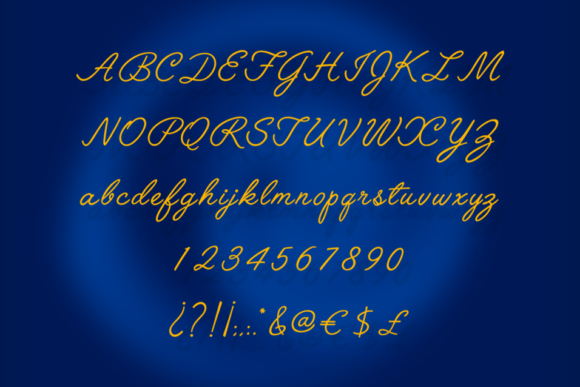
Bring Your Ideas to Life with the Enchanting Angelface Font
Have you ever been stuck in a creative rut, staring at a blank page or screen, desperate for inspiration to strike? You know the feeling – the blank canvas is staring back at you, and your mind is a jumble of ideas that refuse to take shape. But then, something magical happens. A spark of creativity ignites, and your imagination starts to run wild. The words begin to flow, and your vision starts to take shape.
That’s where the Angelface Font comes in – a whimsical, handwritten font that captures the essence of fun, quirkiness, and authenticity. With its enchanting style, this font is designed to turn any creative idea into a true standout. Whether you’re a seasoned designer or just starting out, the Angelface Font is a valuable addition to your toolkit, helping you to bring your unique vision to life.
Angelface Font Key Features
- Font Family: Angelface
- Unique Characteristics: Angelface features a unique blend of elegant and playful elements, with intricate details and flourishes, making it suitable for use in various design contexts, including invitations, greeting cards, and other creative projects
Angelface Font Review
At first glance, Angelface Font appears to be a whimsical and playful addition to any design project. ✨ The delicate curves and elegant lines evoke a sense of sophistication, making it suitable for a variety of applications, from wedding invitations to luxury branding.
Here are some of the strengths of Angelface Font:
- ✨ Unique and eye-catching design that stands out from more traditional fonts.
- ✨ Elegant and refined, making it perfect for high-end branding and design projects.
- ⚠️ The font’s delicate design may not be suitable for very small text sizes, where readability becomes an issue.
- ⚠️ Some users may find the font too ornate or distracting, which can detract from the overall design.
Overall, Angelface Font is a beautiful and elegant addition to any design project. While it may have some limitations, its unique design and sophisticated feel make it a great choice for high-end branding and design applications.
Angelface font is ideal for designs that require a touch of elegance and sophistication. Use it for wedding invitations, birthday party decorations, or any other design that needs a whimsical touch. To get the most out of the font, experiment with different font sizes, colors, and combinations with other design elements.
Great Vibes is a beautiful, elegant script font perfect for adding a touch of sophistication to your designs. It’s ideal for wedding invitations, quotes, and other creative projects that require a delicate, handwritten feel.
Great Vibes Font is more ornate than Angelface Font, with intricate flourishes and connections between letters. It’s better suited for projects where you want to add a sense of luxury and refinement.
Crimson Text is a high-quality serif font designed for body text, but it can also be used for headings and titles. It’s a great choice for projects that require a classic, timeless feel.
Crimson Text Font is more formal than Angelface Font and lacks the script-like feel. It’s better suited for projects where you want to convey a sense of tradition and authority.